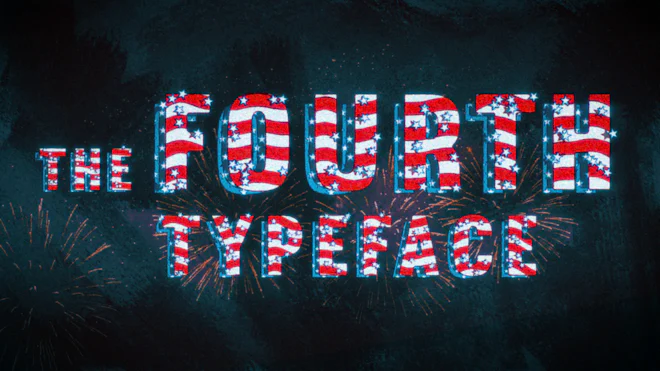
Pack Of 56 Stripes And Stars Sketchy 4th Of July Typefaces On Alpha Loop
This stock motion graphics video pack includes 56 different clips stripes and stars sketchy 4th of July letters, numbers, currency symbols and arrows on a transparent alpha channel in a seamless loop.